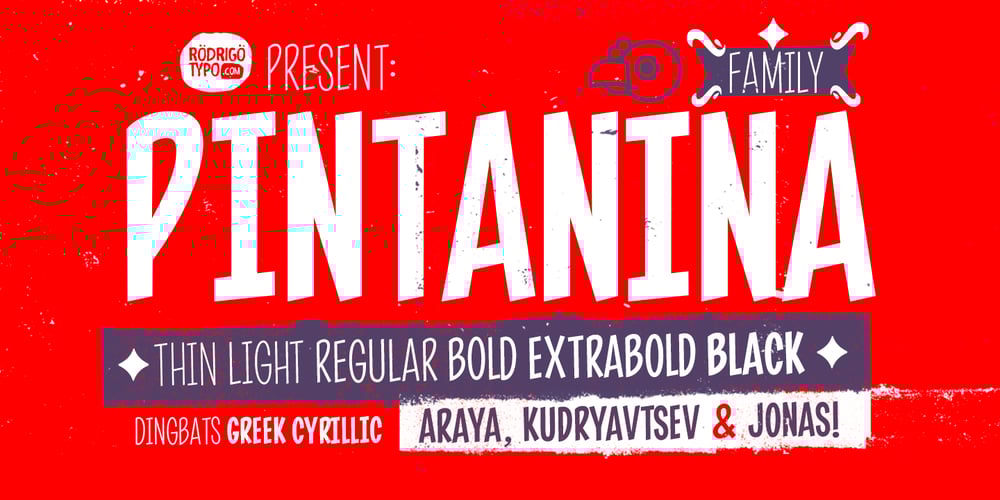
Pintanina Font Family was designed by Andrey Kudryavtsev, Rodrigo Araya Salas, Franco Jonas and published by RodrigoTypo. Pintanina contains 9 styles and family package options. Pintanina was developed in 2013 with many alternatives of alphabets as ligatures Based on the Comics of Condorito in the headlines, a typography very condensed, in 2015 was redesigned next to andrey kudryavtsev now with a much more finished design and a better Cyrillic and now 2017 with Franco Jonas, takes Pintanina and begins to generate all the Family of Thin, Light Regular, Bold, Extrabold, Black, also contains different dingbats that can be of help in the titles.